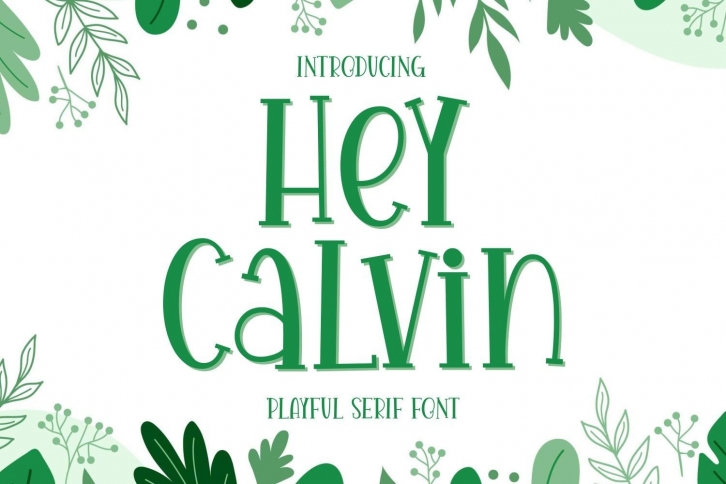
Hey Calvin is a fun and playful serif font. No matter the topic, this font will be an incredible asset to your fonts’ library, as it has the potential to elevate any creation.